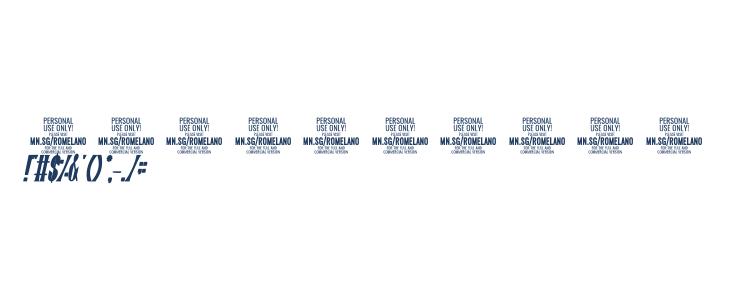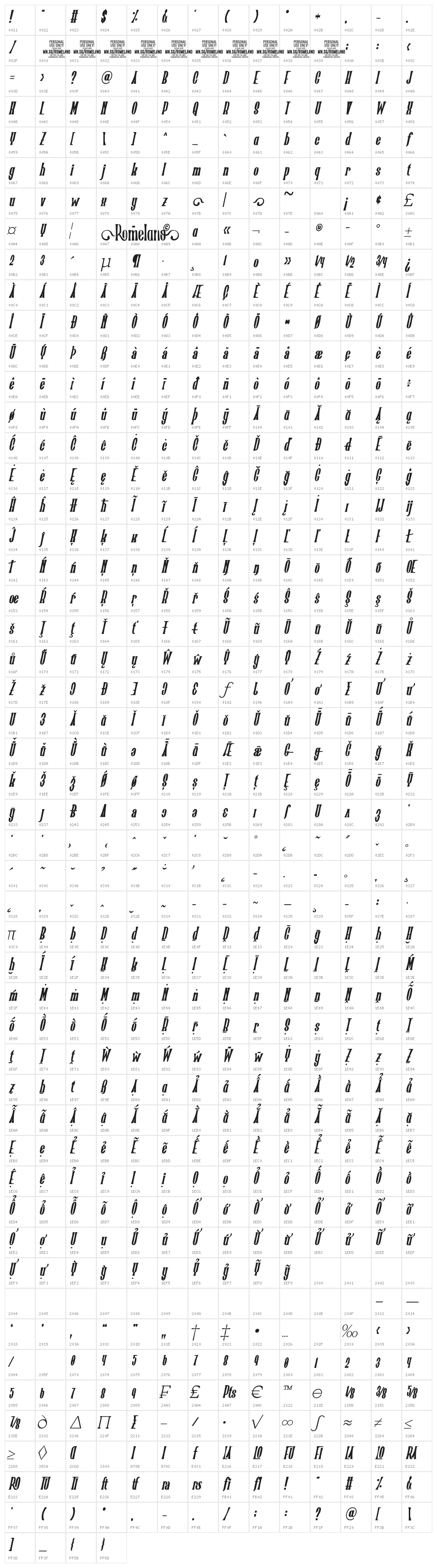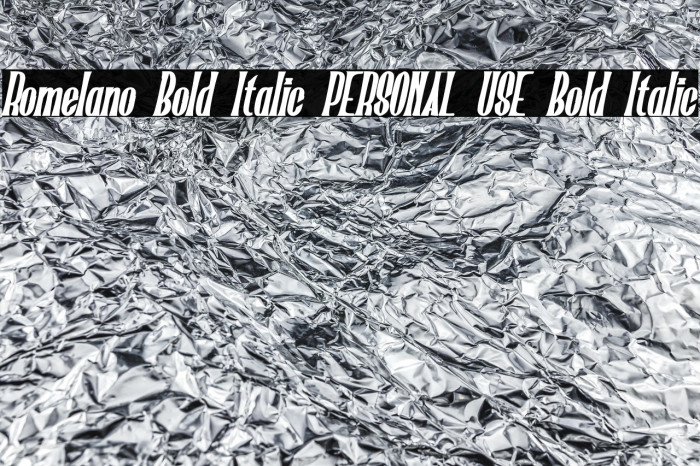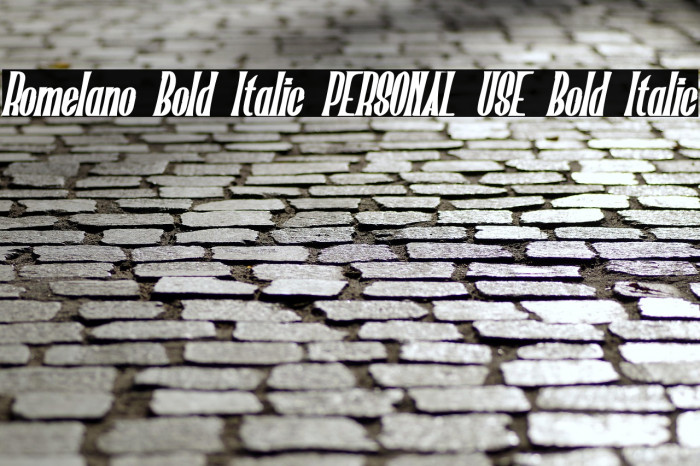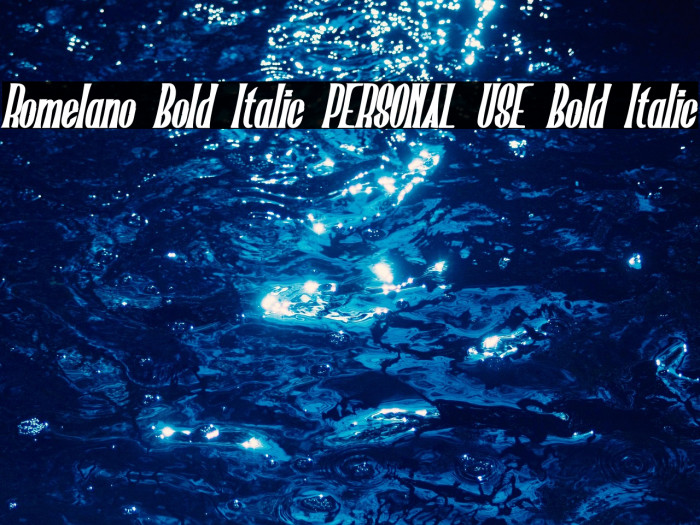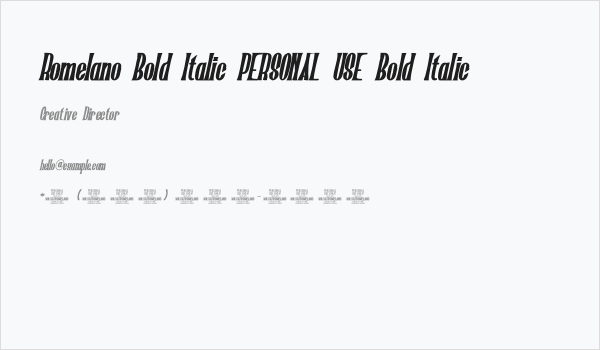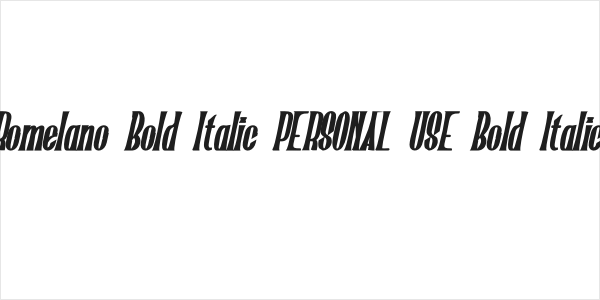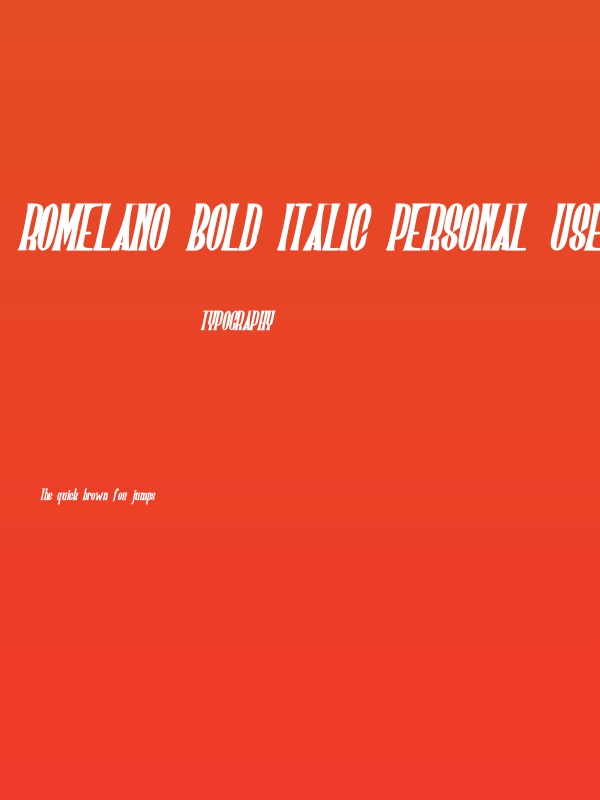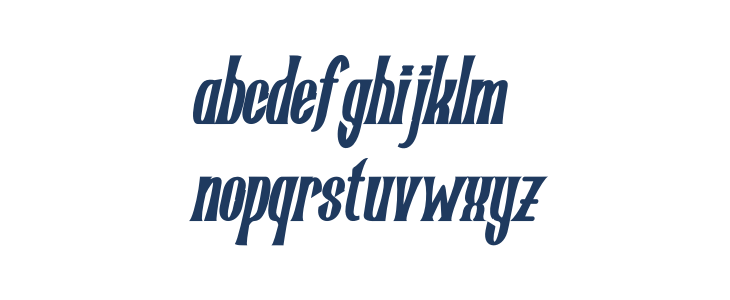
Romelano Bold Italic PERSONAL USE Bold Italic Font
Romelano Bold Italic PERSONAL USE Bold Italic Description
This font exhibits a bold and italicized style with a strong presence, characterized by its thick strokes and dynamic slant. The uppercase letters are tall and commanding, while the lowercase letters maintain a consistent flow, enhancing readability. The numbers and special characters are designed to match the boldness and slant of the alphabet, ensuring a cohesive look across all text. The font's overall aesthetic is modern and impactful, making it suitable for attention-grabbing designs.
Proposed ProjectsIdeal for headlines, posters, branding materials, and any project requiring a strong visual impact.